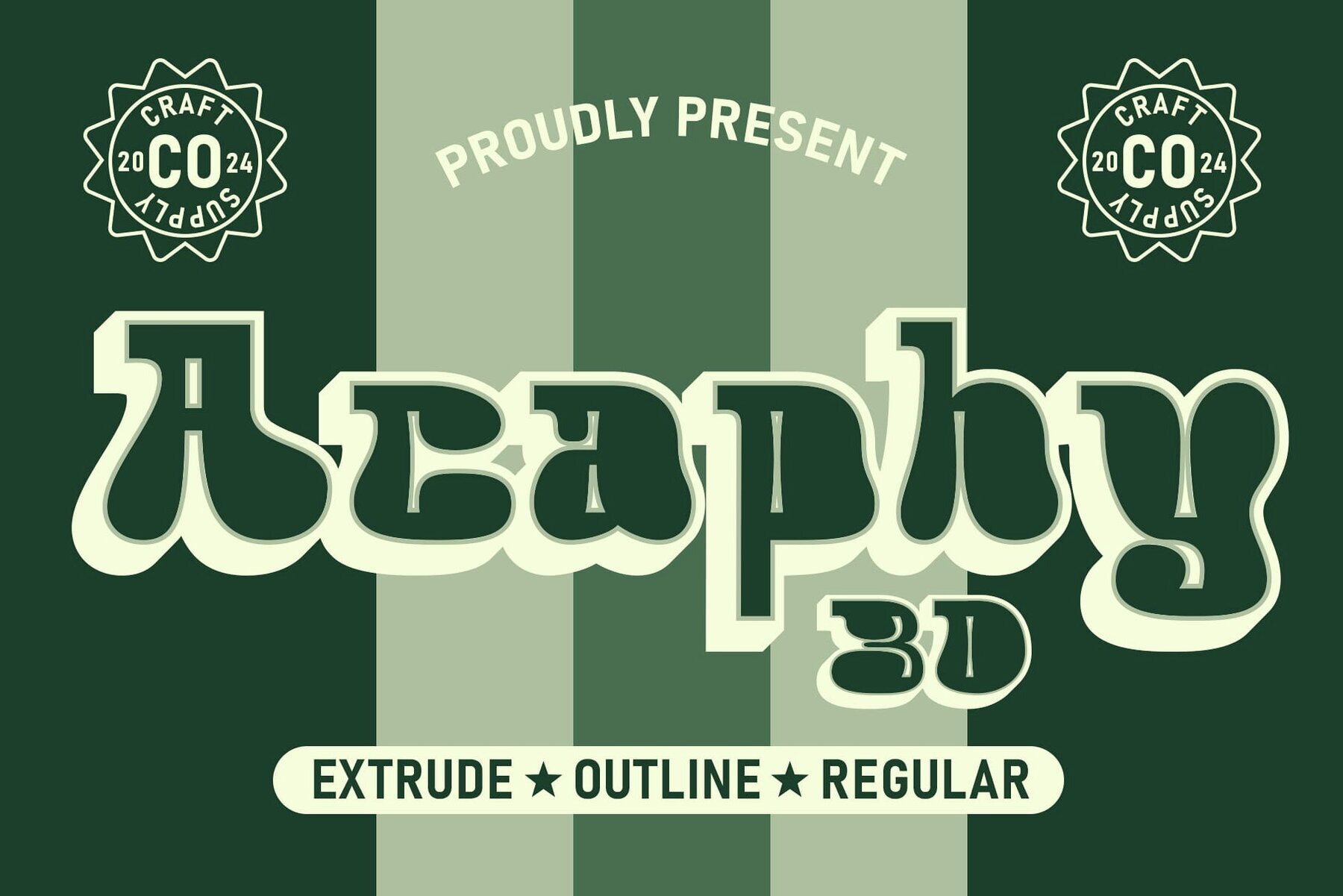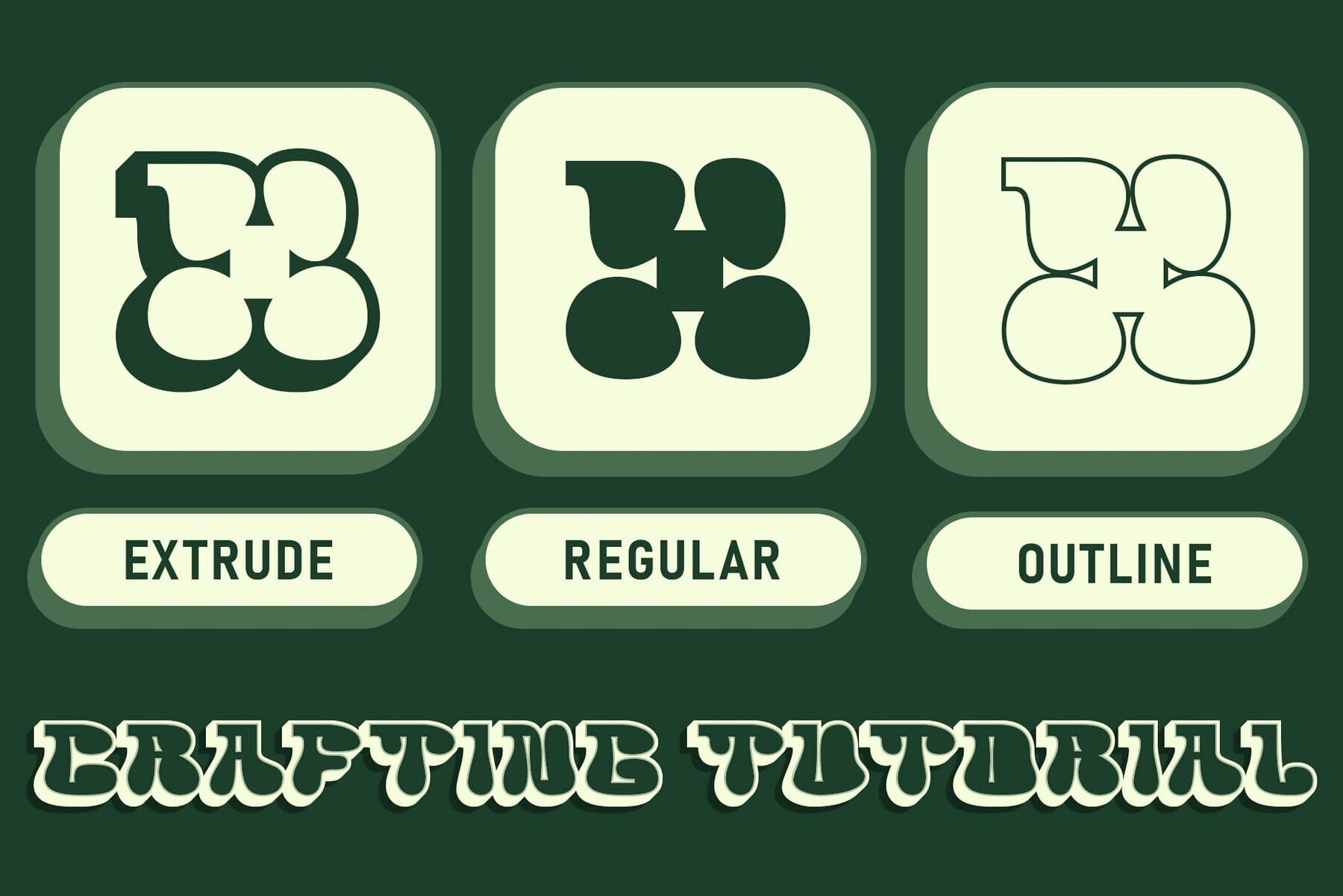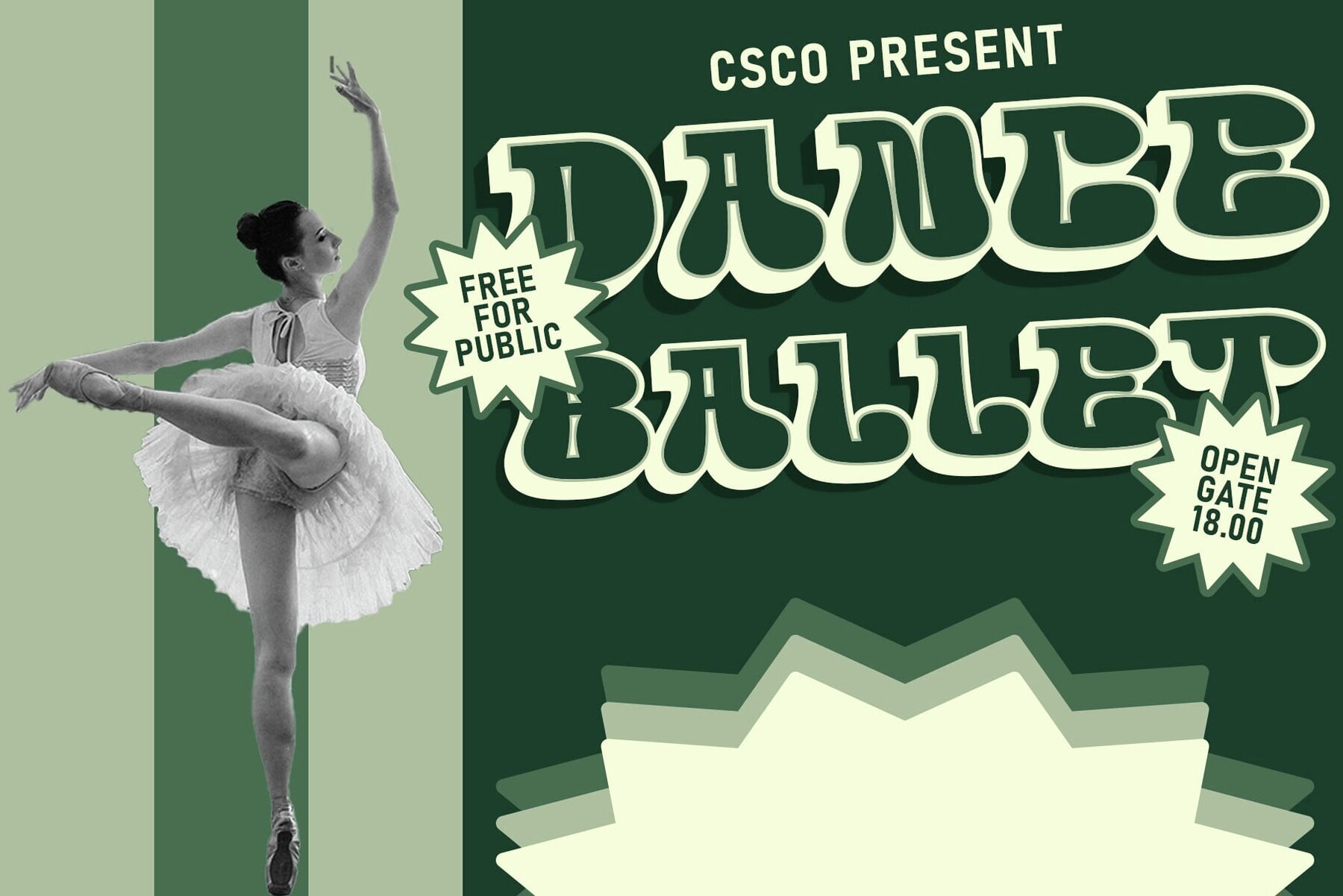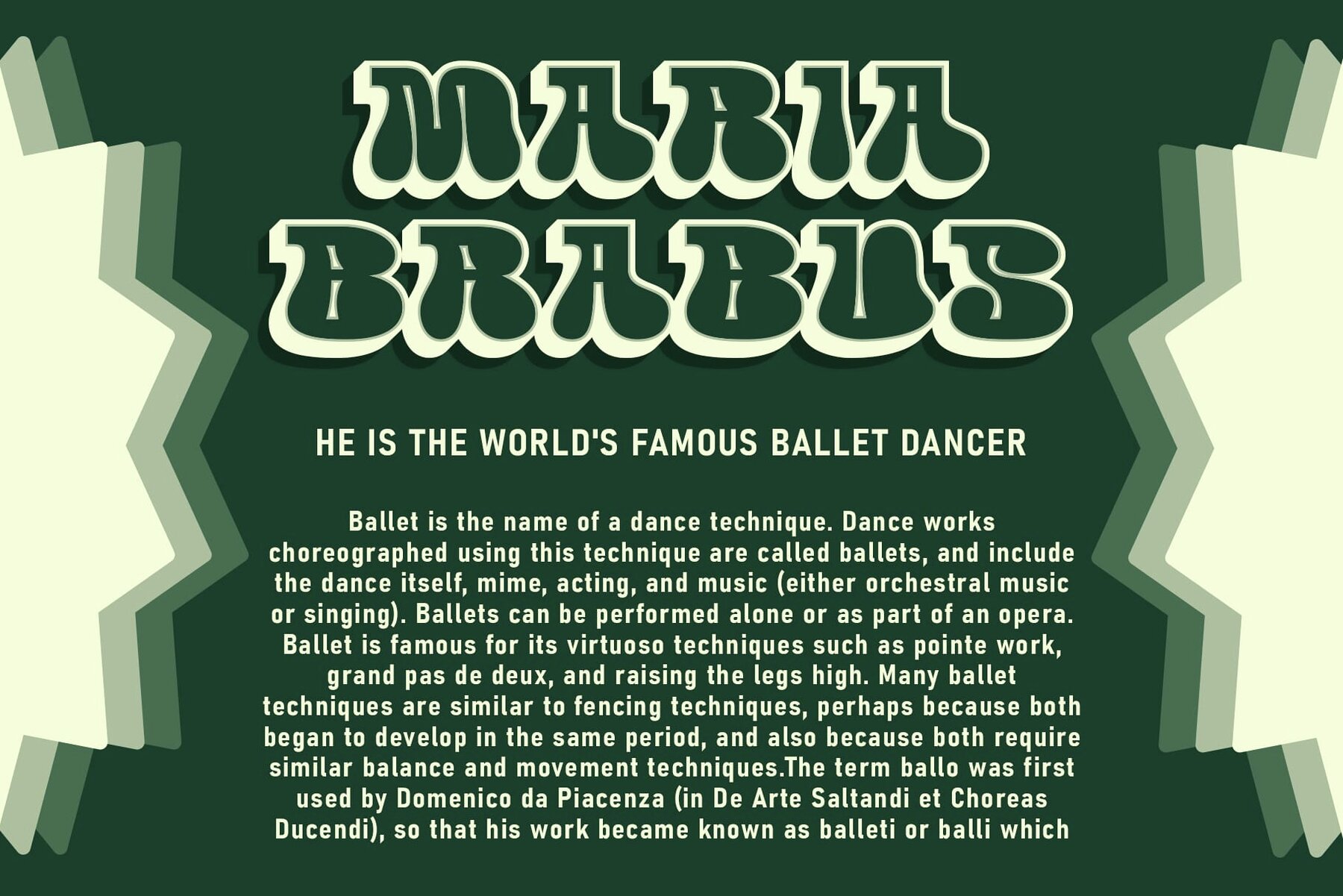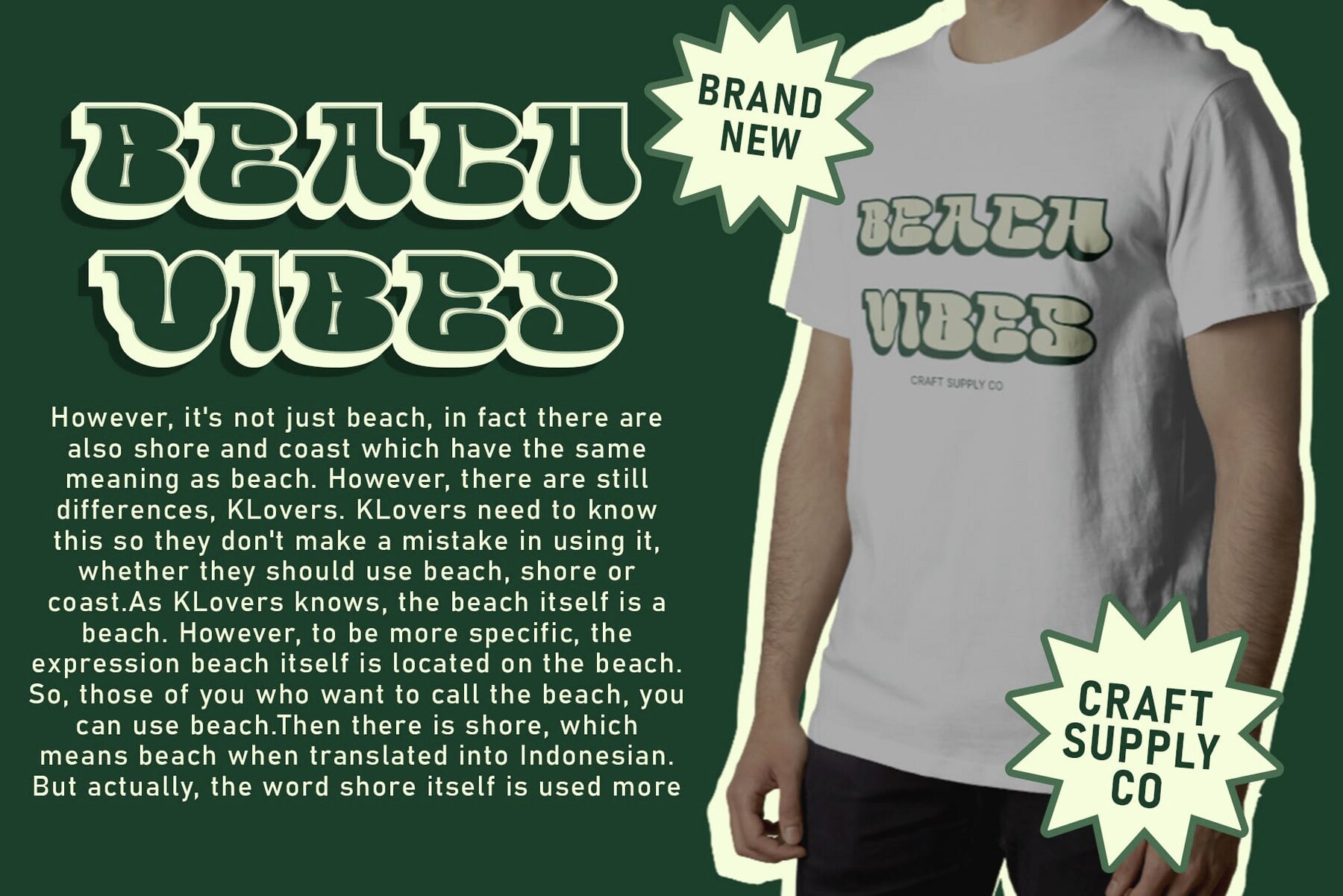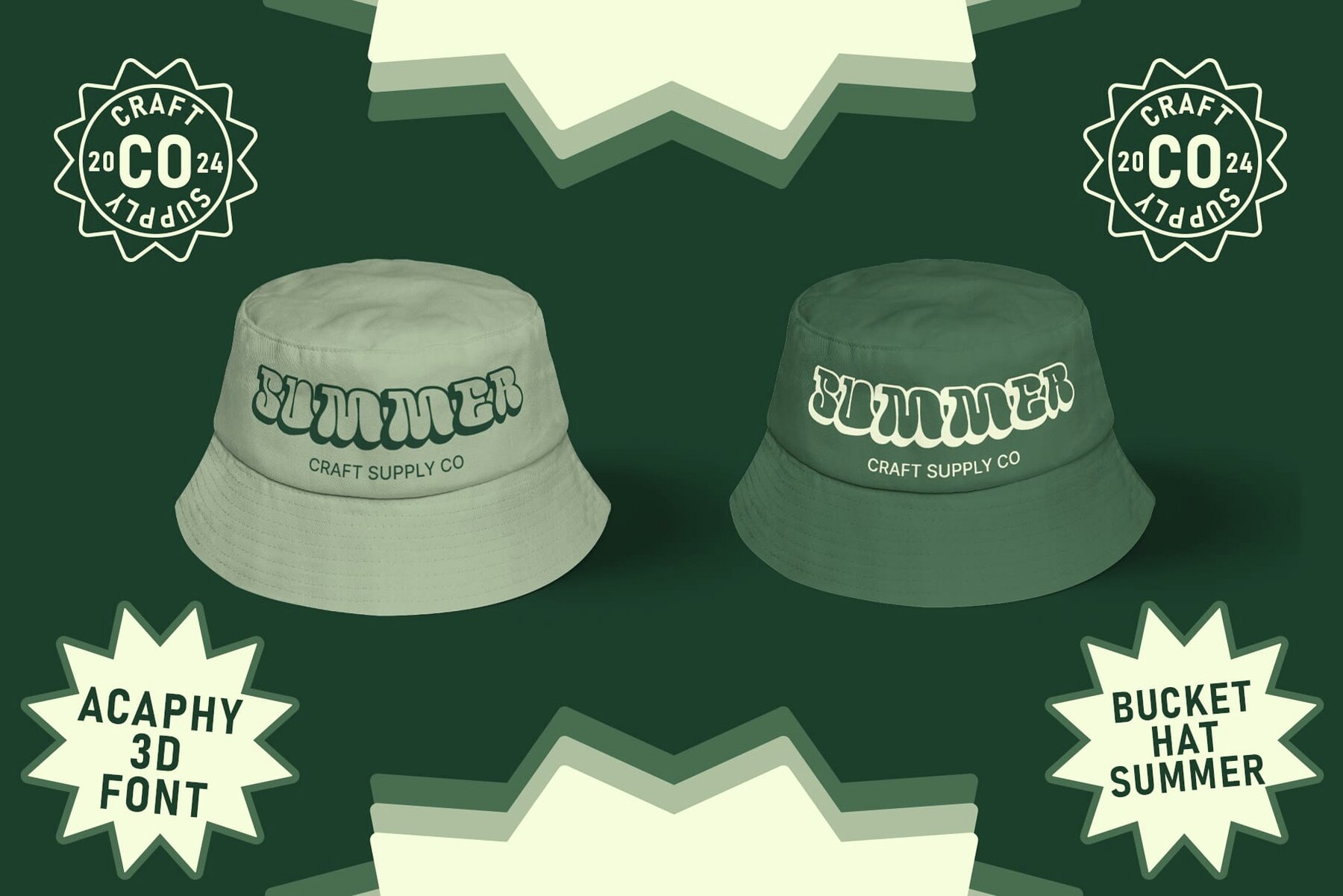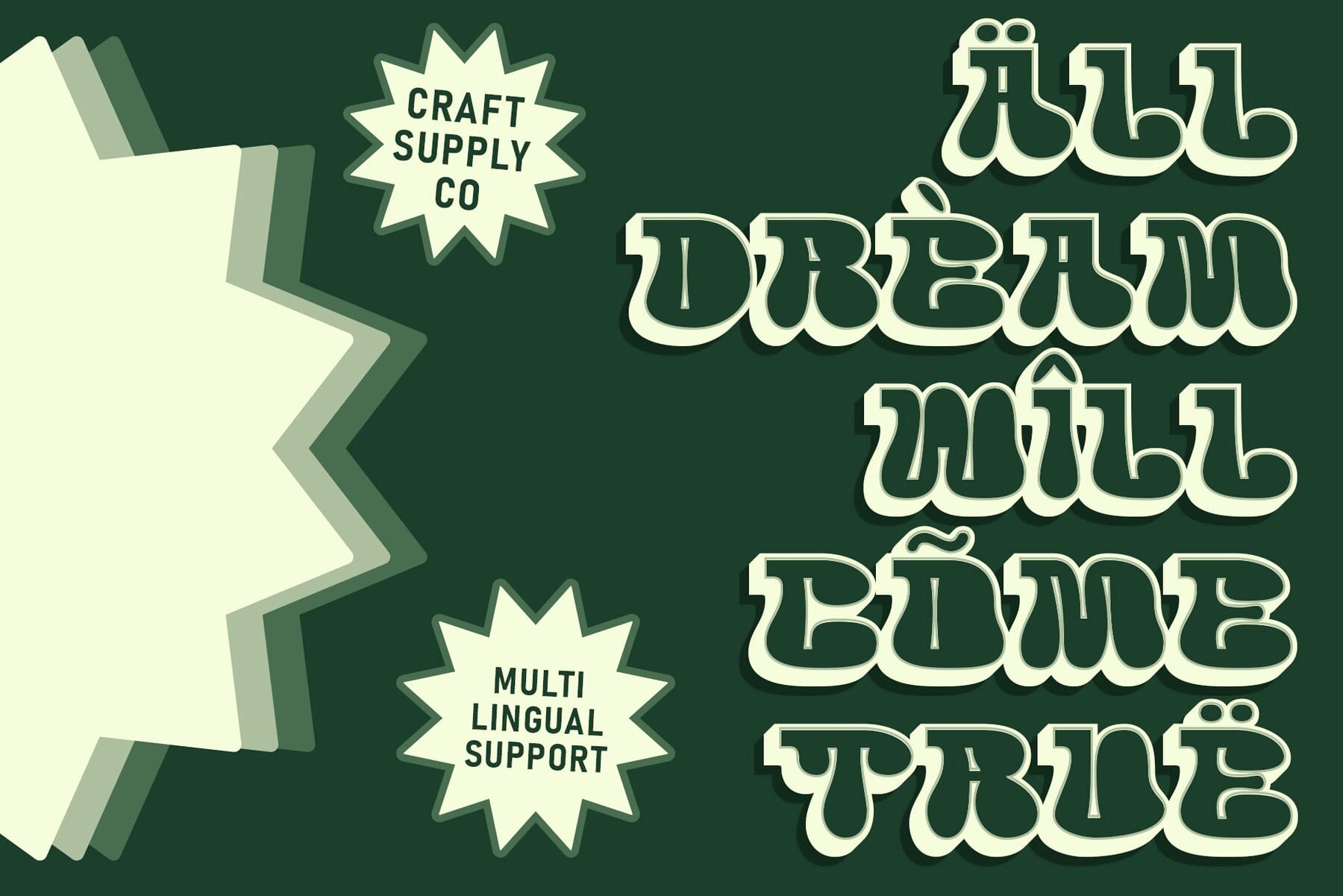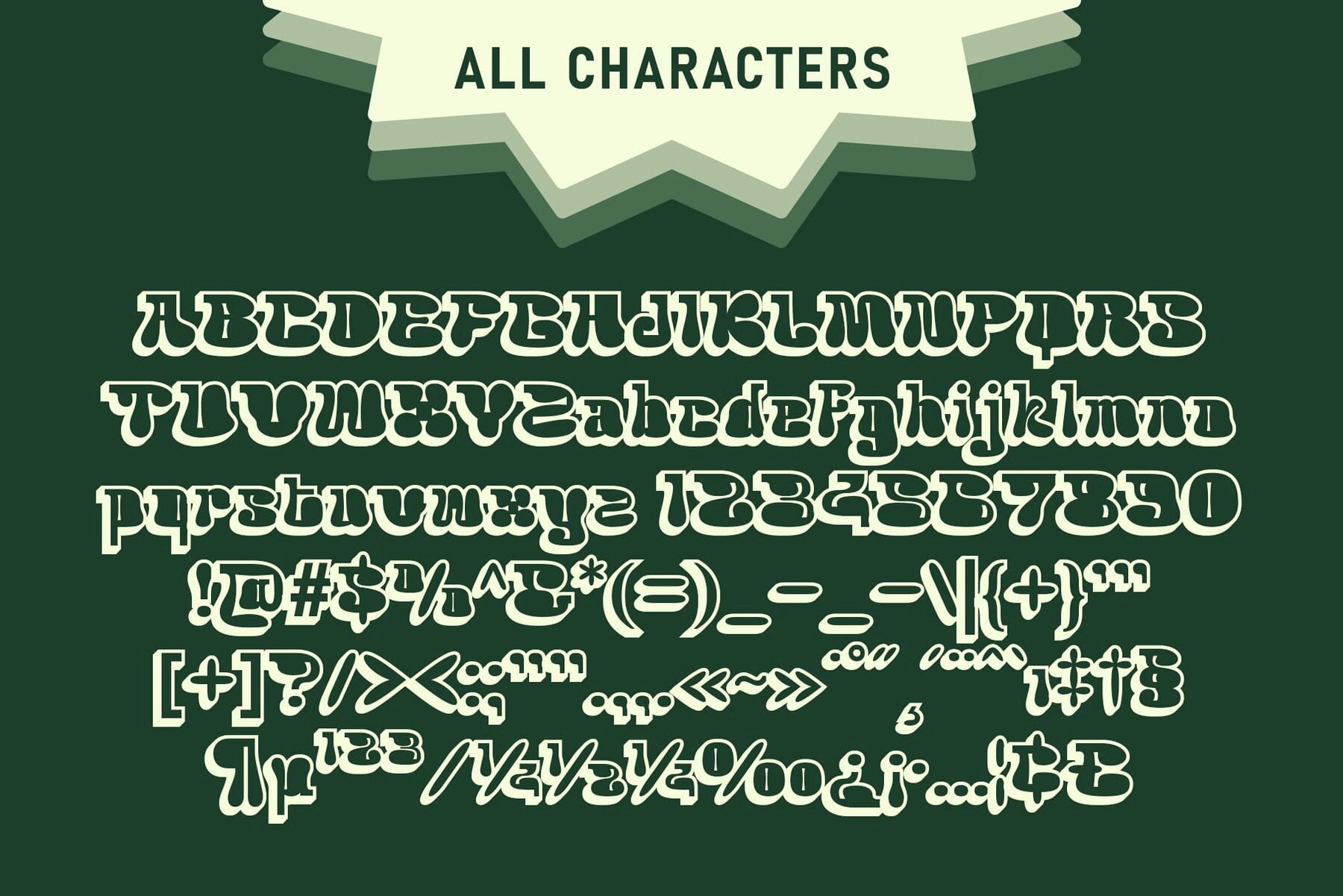
Acaphy 3D Font
This font is a bold, display sans-serif with a modern and slightly grotesque twist. Its playful and eye-catching form factor makes it great for headlines and branding where a strong visual impact is required. The geometric shapes and unique design of the characters give it an overall contemporary and dynamic feel, perfect for projects that aim to be trendy and engaging.